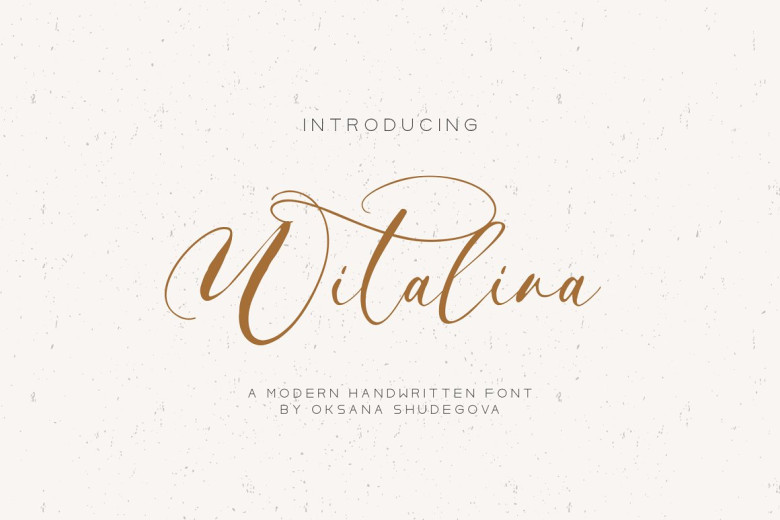
Witalina Font
Witalina Font is a beautiful hand-drawn calligraphy font. Ideal for greeting cards, branding materials such as business cards, posters and quotes as well as wedding cards! Additionally, this font makes an amazing wedding card design element!
Additionally, its versatility also enables you to create eye-catching logo designs for blogs or websites, stationery designs for websites, marketing magazines etc.
Witalina Handwritten Script Font